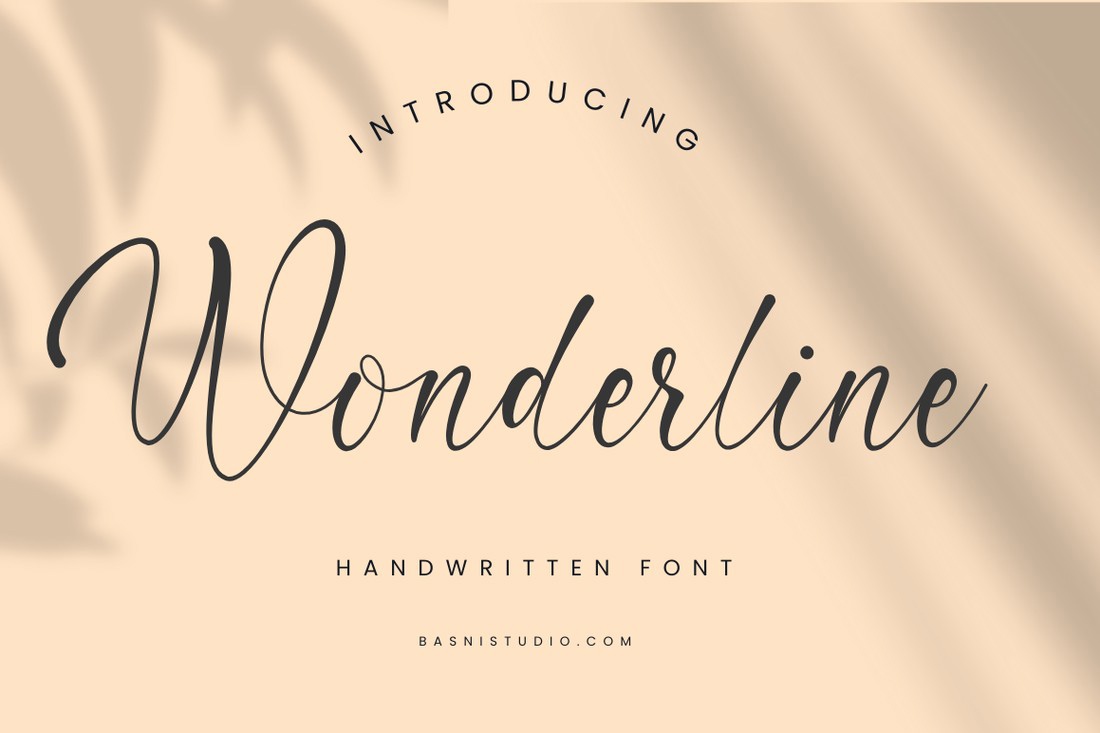
Wonderline Font
Wonderline Font excels in children's imagination centers, magical storytelling workshops, whimsical theme park attractions, enchanted birthday party decorations, fairy tale book publications, wonder-filled educational programs, creative arts and crafts studios, imaginative play centers, magical entertainment venues, and inspiring childhood development materials. This enchanting typeface brings childlike wonder and magical curiosity to any imagination-focused design project.
Wonderline Font is exciting because it captures the boundless wonder and magical curiosity that makes childhood such an extraordinary time of discovery, featuring delightfully curved letterforms that seem to dance with the same joy and amazement that children experience when they encounter something truly wonderful. Its whimsical character instantly evokes imagination, creativity, and the beautiful sense of wonder that opens minds to infinite possibilities.
Wonderline Font family includes Light, Regular, Medium, and Bold weights with whimsical alternates, wonder-inspired flourishes, magical ornamental elements, and imagination symbols that enhance the enchanting aesthetic, providing wonder designers with delightful tools for creating typography that celebrates childhood curiosity and promotes the magical thinking that fuels creativity and learning.
Children's experience designers love Wonderline Font for its exceptional ability to convey wonder and magical thinking through delightfully crafted letterforms. The font's whimsical character and imagination details create immediate associations with fairy tales, magical adventures, and the beautiful curiosity that drives children to ask "what if?" and explore the wonderful possibilities that exist when imagination meets reality.
The design philosophy behind Wonderline Font celebrates the fundamental importance of wonder and imagination in child development and the magical thinking that helps children understand their world while maintaining the creativity and curiosity that will serve them throughout their lives, making it particularly effective for educational institutions, children's entertainment, and family brands. Creative teams working on children's experiences find this font essential.
Whether used for children's museums, magical entertainment experiences, or wonder-filled educational programs, Wonderline Font delivers the perfect combination of whimsical charm and imaginative authenticity. Its wonderful appeal and magical spirit make it an indispensable choice for organizations that nurture childhood wonder, promote creative thinking, and celebrate the magical curiosity that makes learning an adventure of discovery and imagination.